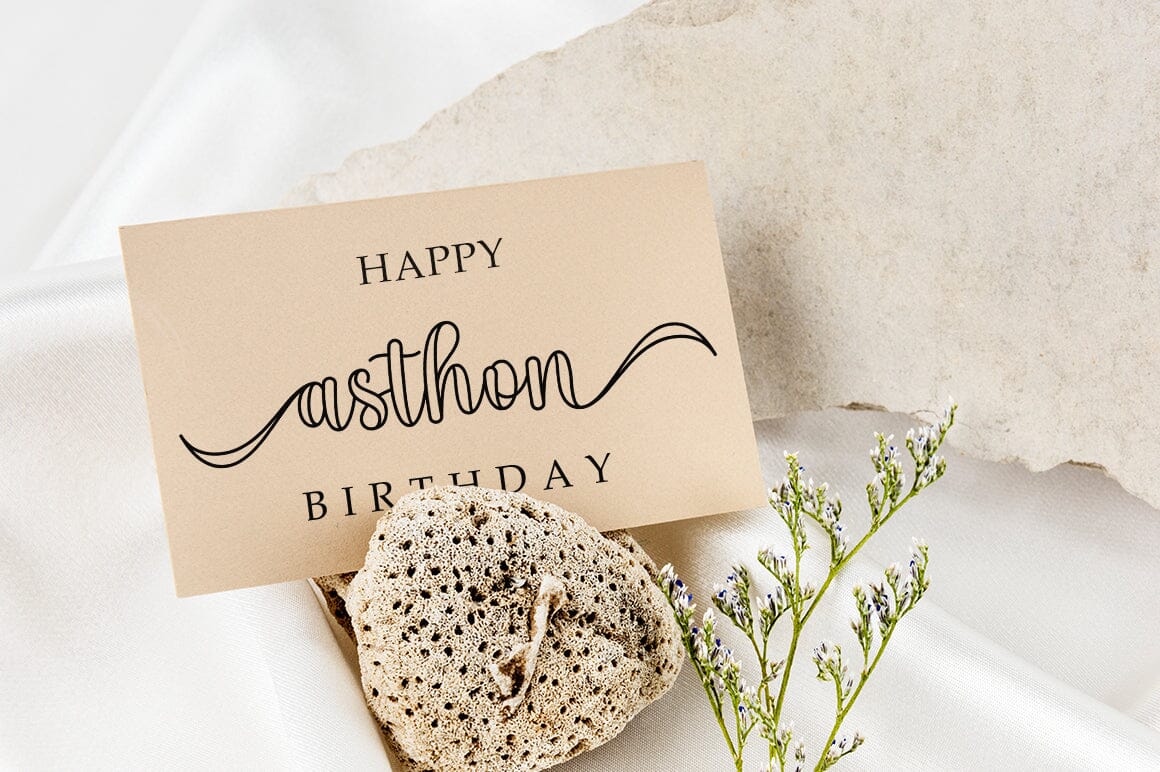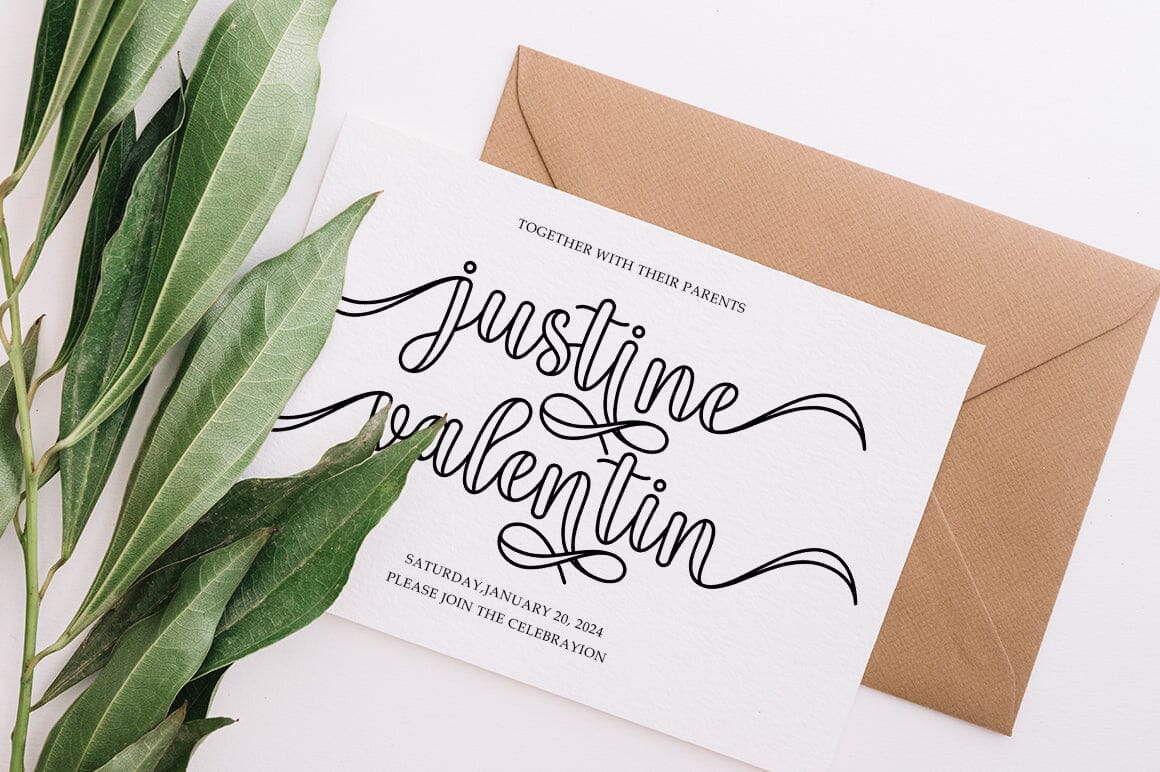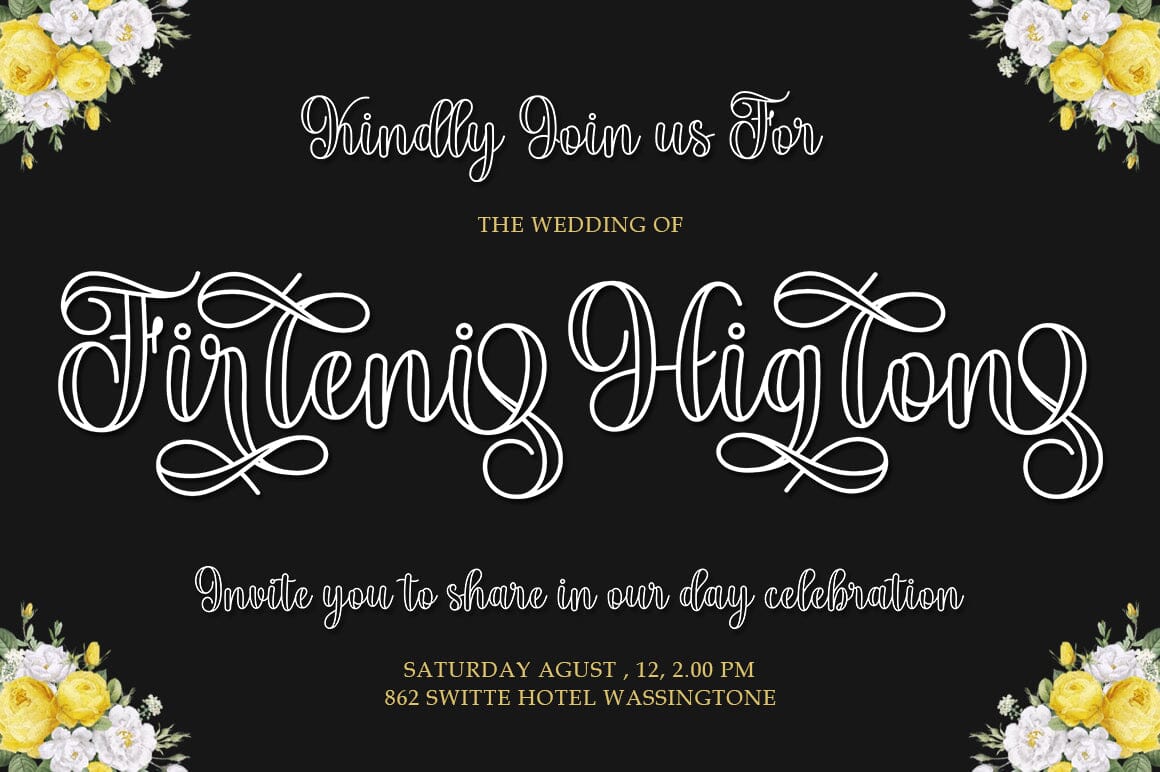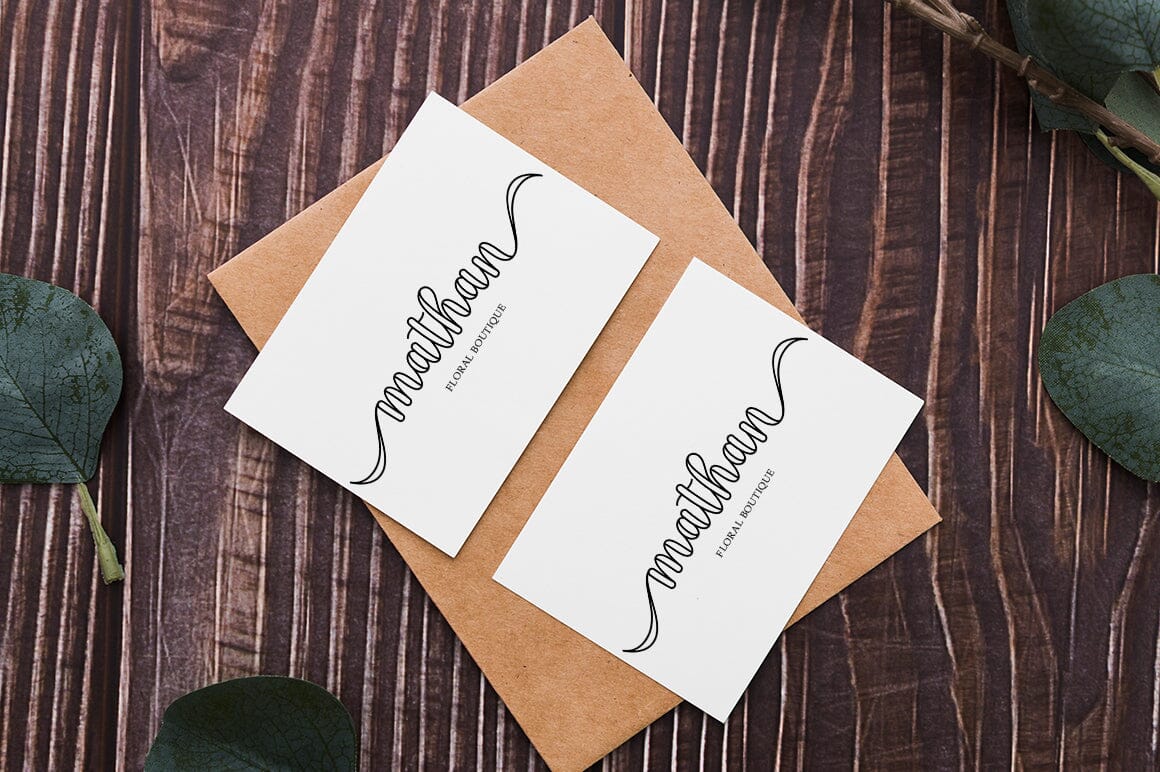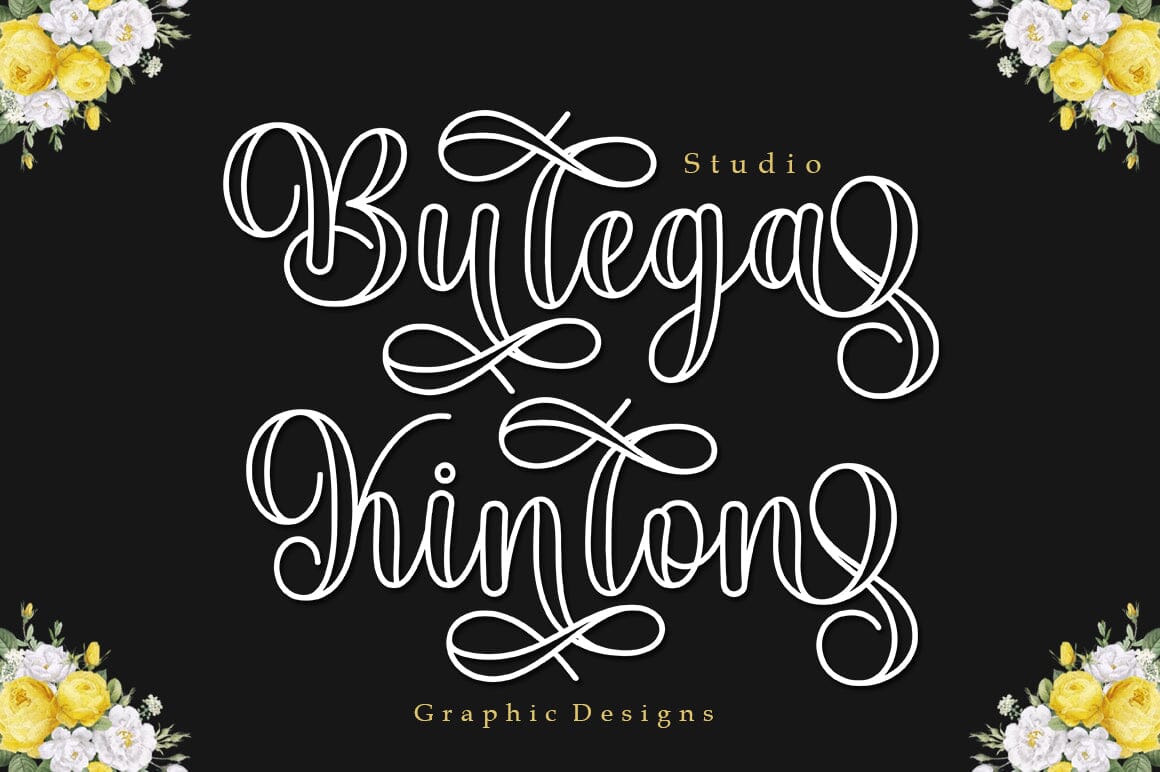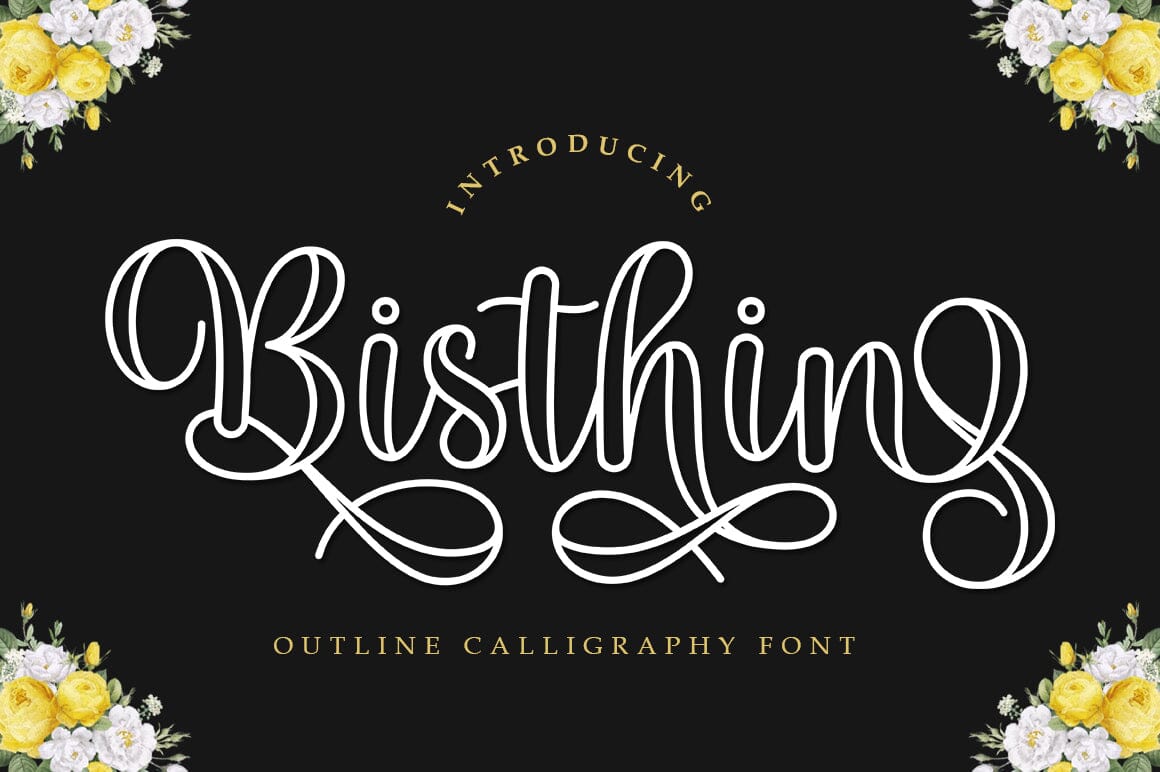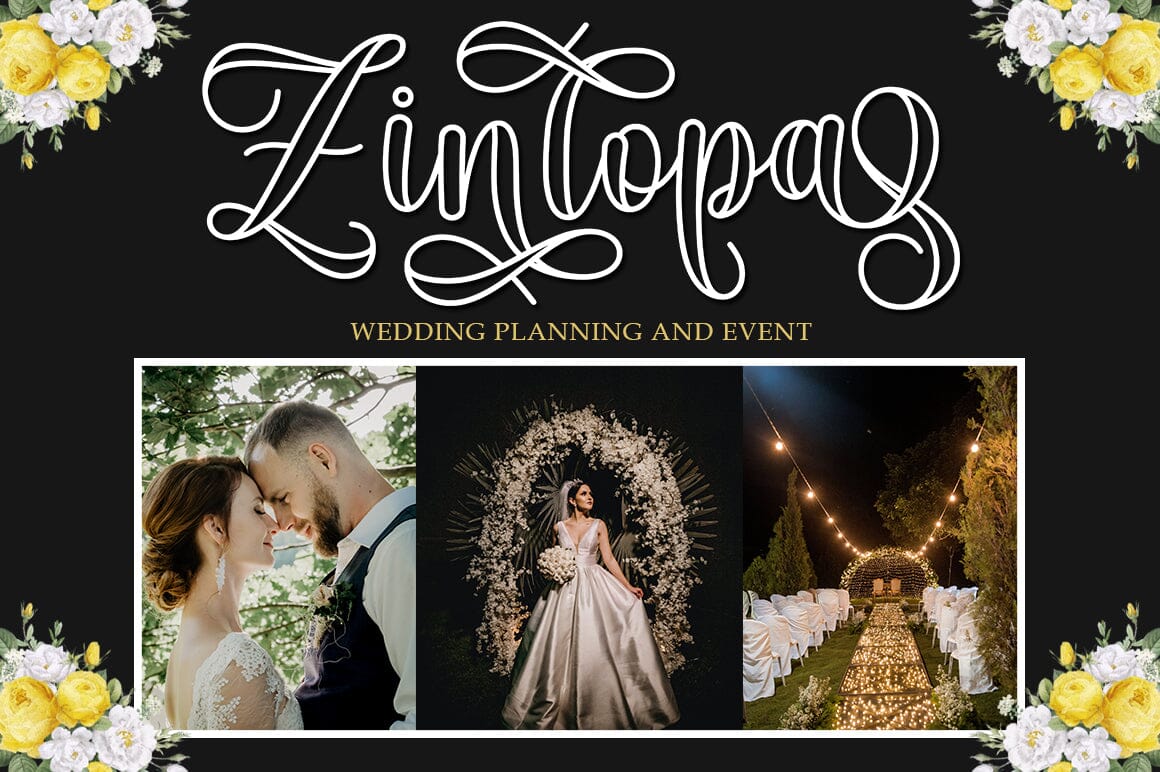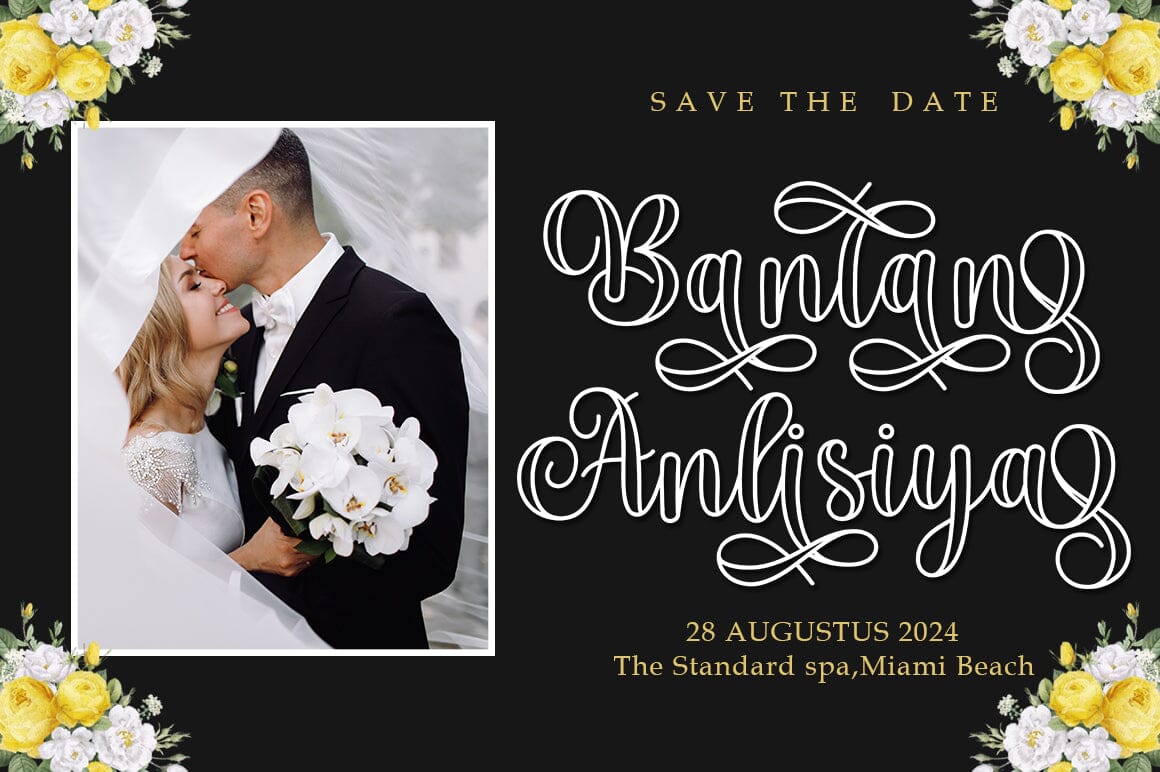
Bisthin
About Bisthin
Bisthin is a beautiful Outline Calligraphy font with a touch of love. Bisthin is perfect for branding projects, home appliance design, product packaging, use in business cards, invitation cards, etc. Files include: – Bisthin Otf – Bisthin Ttf Thanks for checking! I really hope you enjoy it.